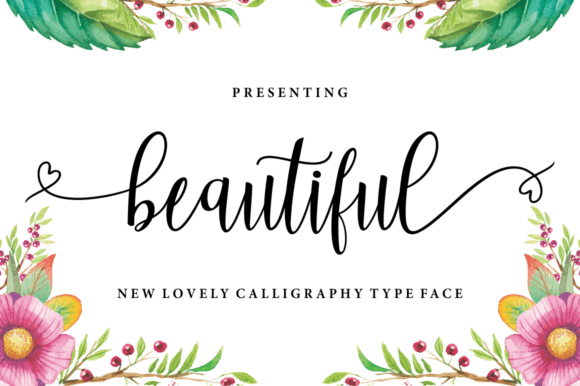
Beautiful Font for Crafting, Logos and Print Projects
This font delivers a refined script style with sweeping lines and gentle curves, crafted for creators looking to infuse warmth and elegance into their designs. Beautiful is ideal for names, branding, invitations, and custom printed goods that need a romantic or feminine touch.
- Crafters designing elegant vinyl projects
- Logo designers building boutique brand identities
- Print shop owners producing feminine stationery
- Event planners creating wedding or baby shower materials
- DIY hobbyists making heartfelt gifts
- Wedding invitations and monograms
- Printable quotes and love notes
- Custom brand marks and packaging
- Crafted gifts like mugs, signs, and pillows
- Decorative apparel and home décor
- Romantic, flowing style for emotional appeal
- Perfect for weddings, branding, and feminine products
- Pairs beautifully with serif and sans-serif fonts
Q: What type of font is Beautiful?
A: It’s a script-style font with elegant, handwritten curves, great for romantic, personal, or feminine designs.
Q: Can I use this font for wedding invitations?
A: Absolutely. It’s perfect for wedding materials, love notes, and any project needing a romantic touch.
| Feature | Beautiful Font | Generic Script Font A | Generic Handwriting Font B |
| Feminine Style | Yes – Elegant and flowing | Partially stylized | Casual only |
| Best Use Cases | Weddings, branding, quotes | General signage | Notes and casual crafts |